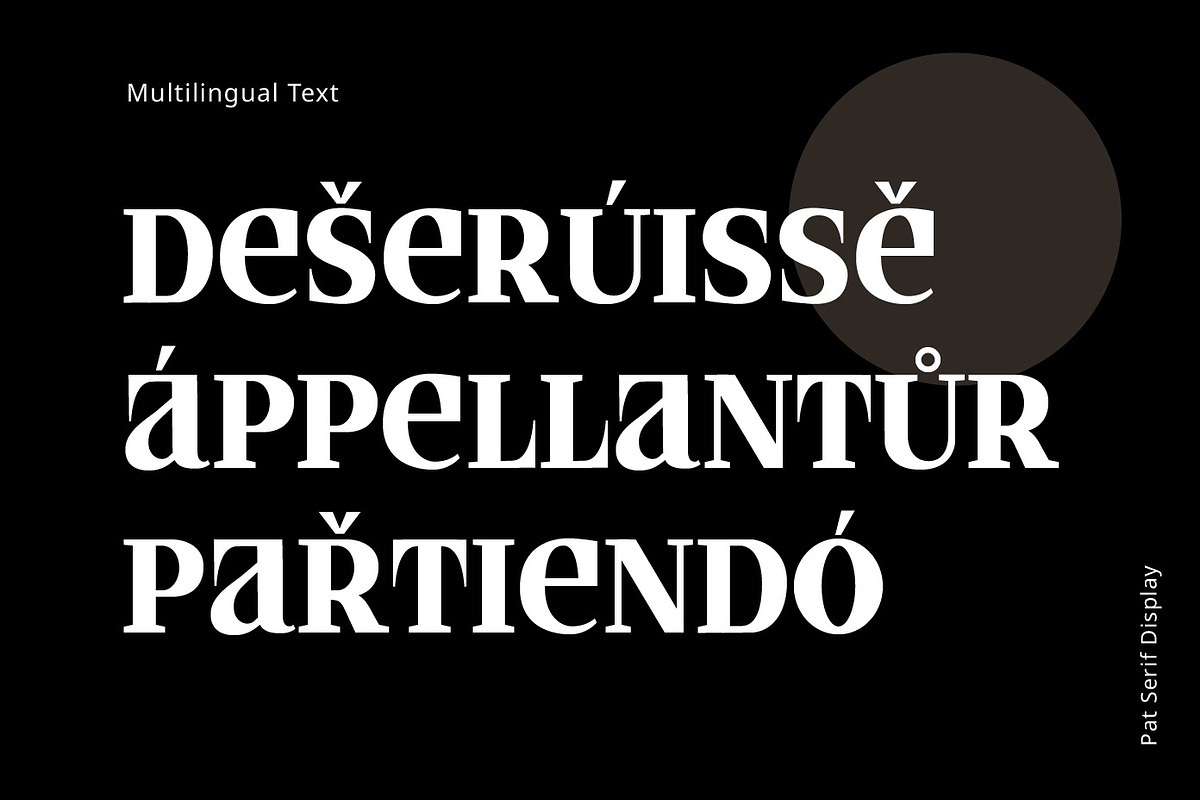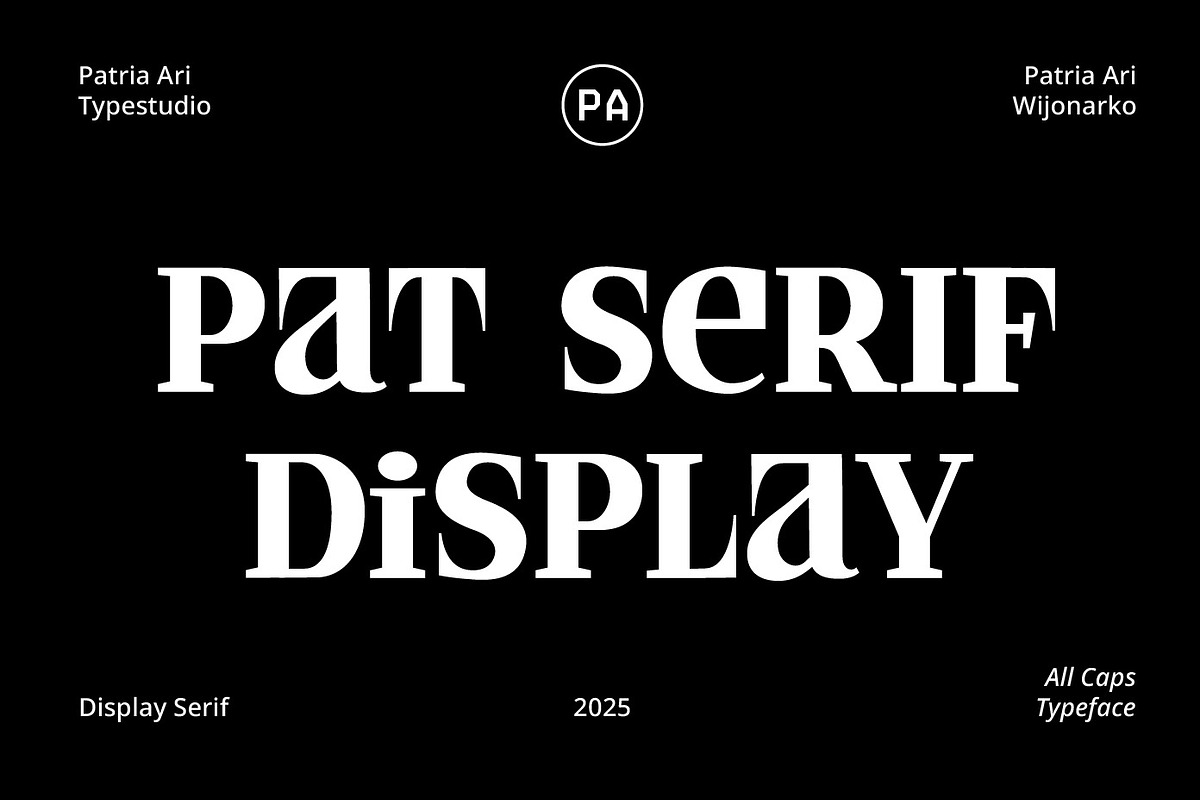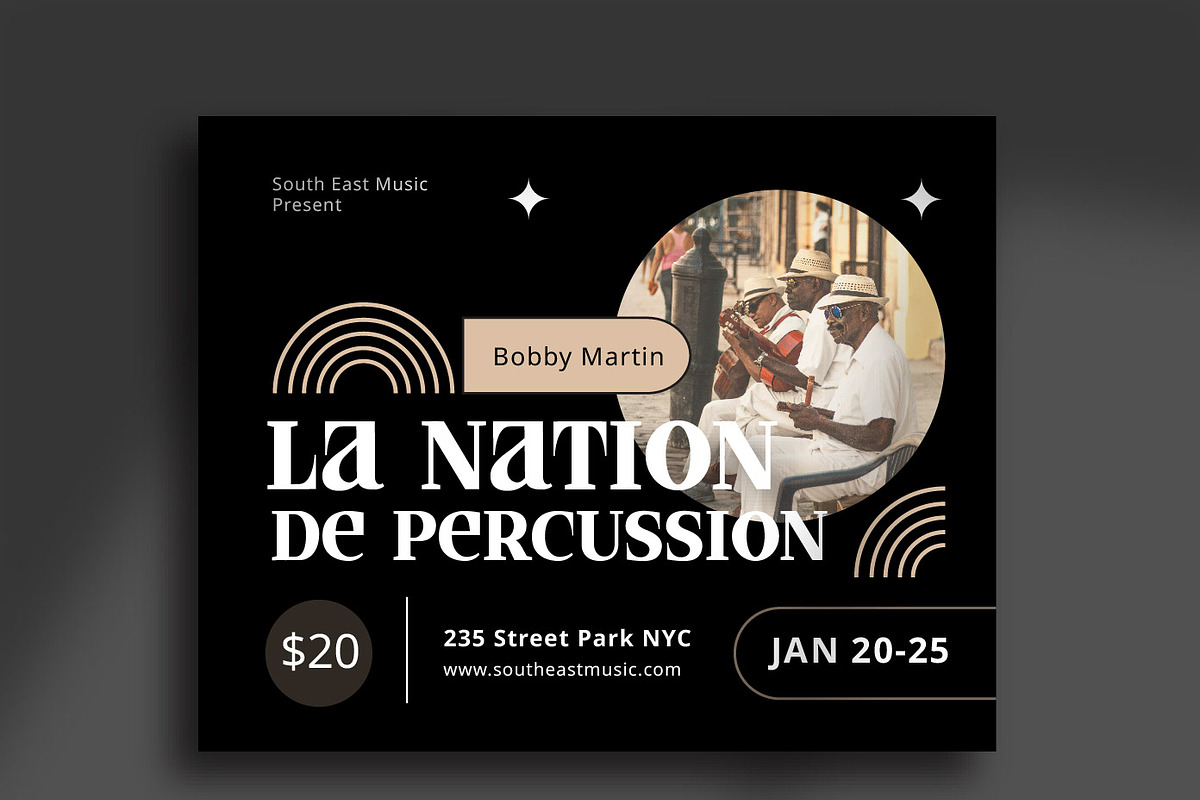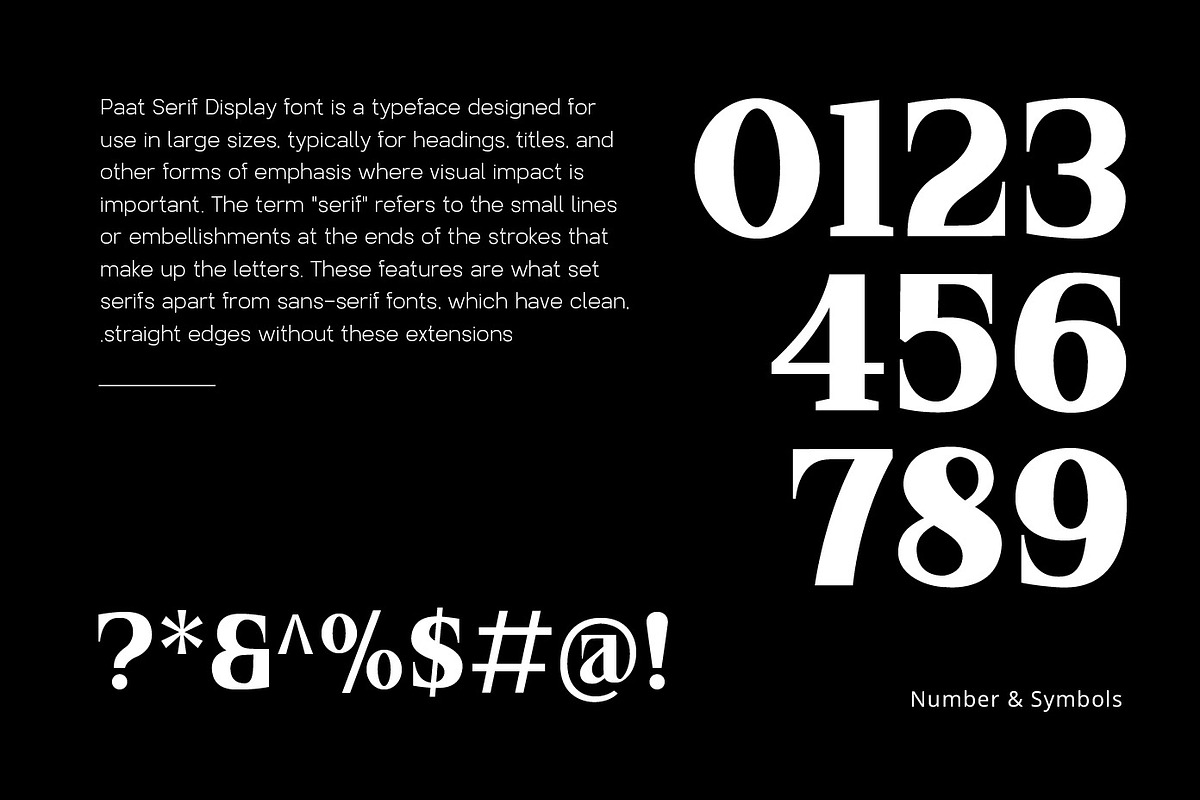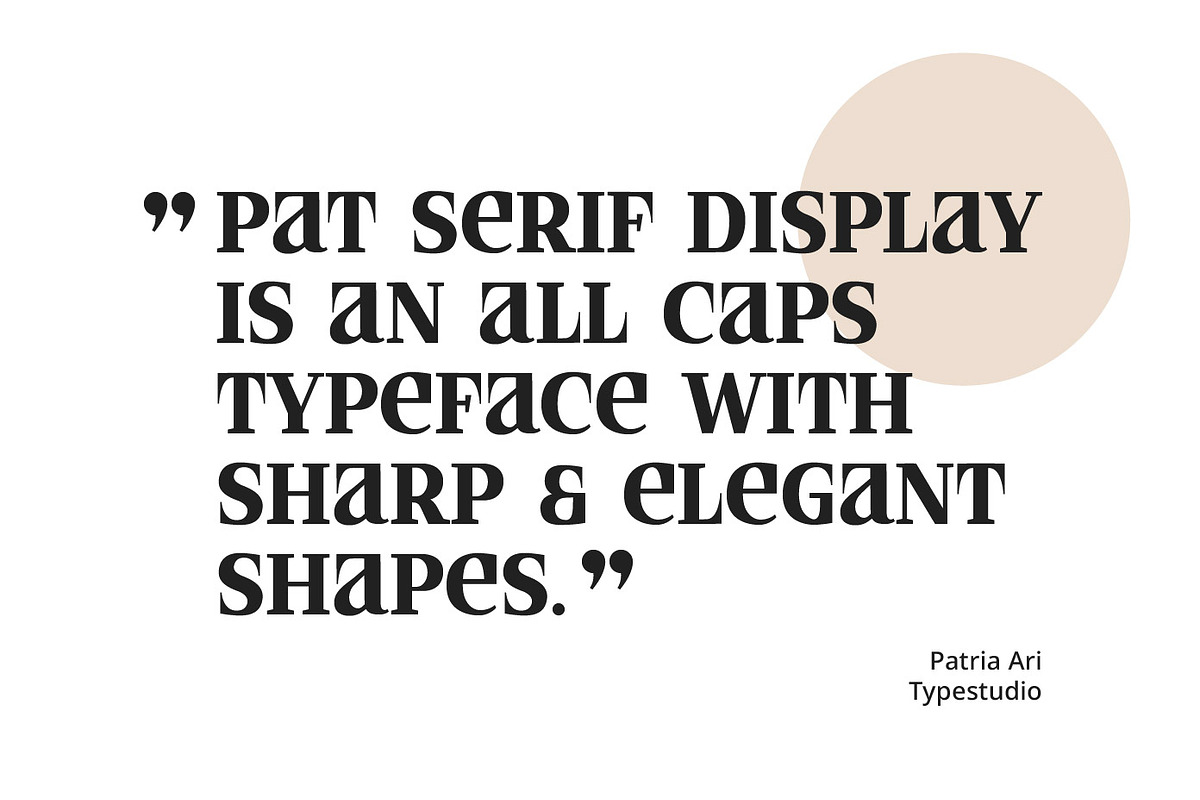
PAT Serif Display
PAT serif display is an all caps typeface with sharp & elegant shapes. This typeface designed for use in large sizes, typically for headings, titles, and other forms of emphasis where visual impact is important.